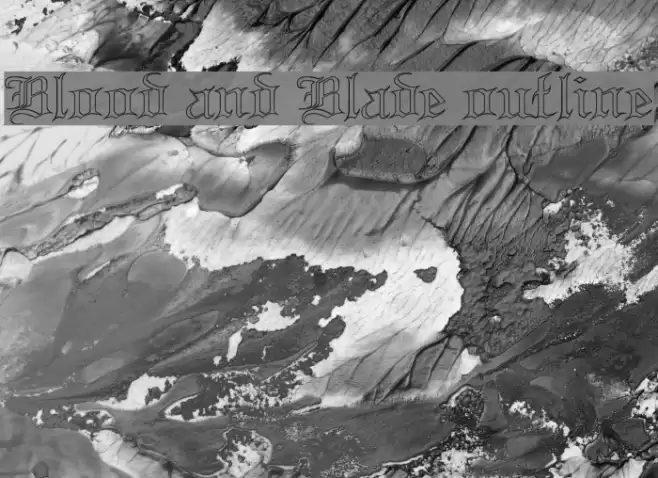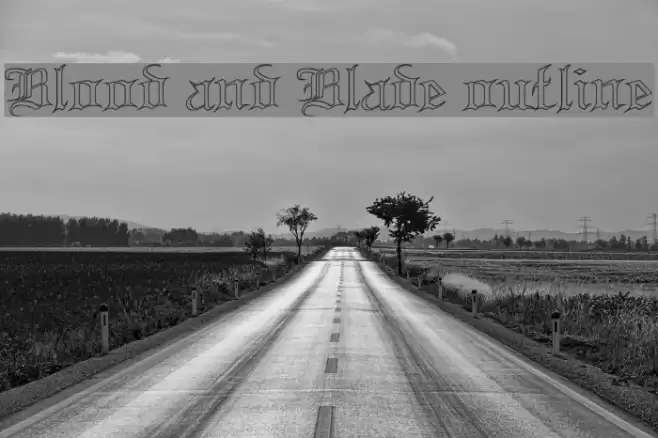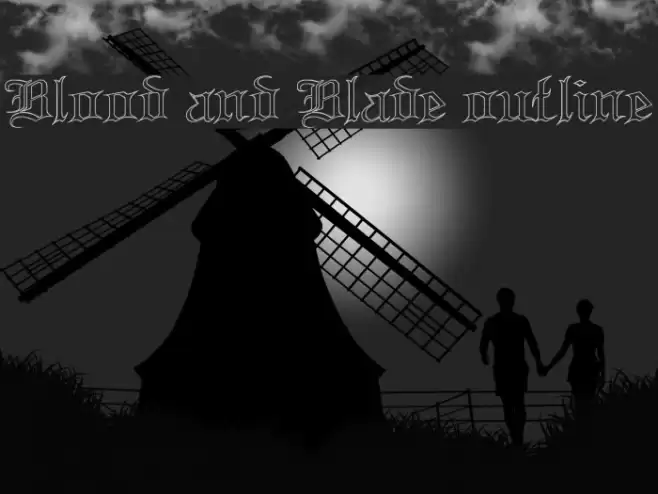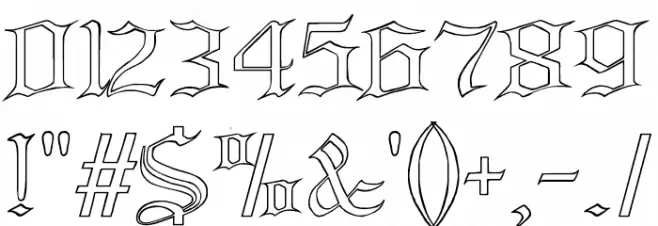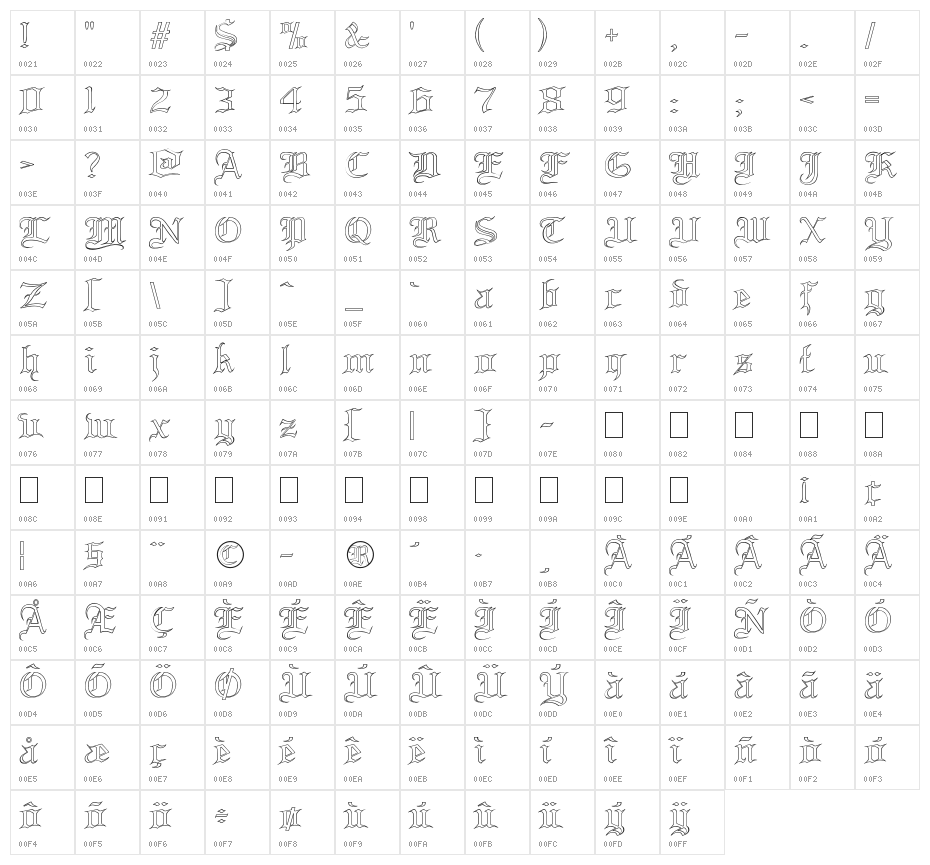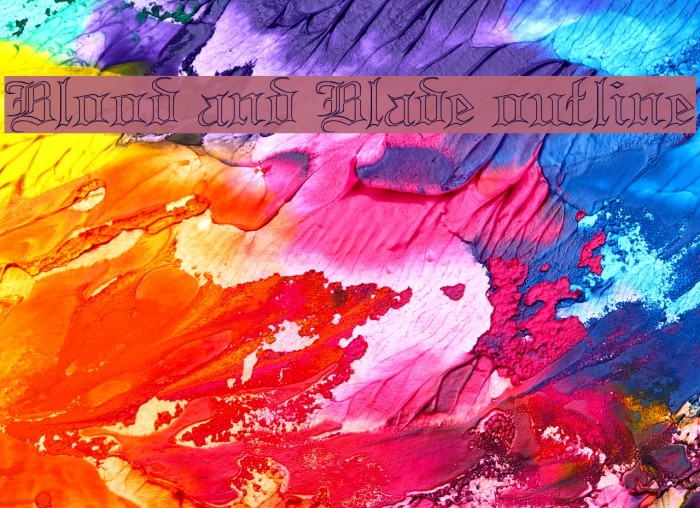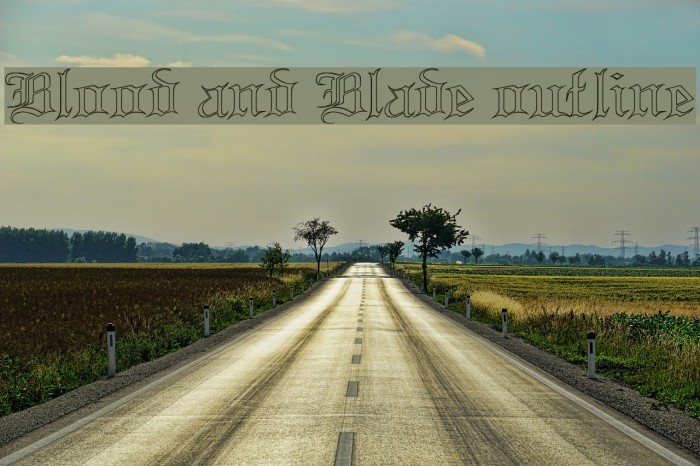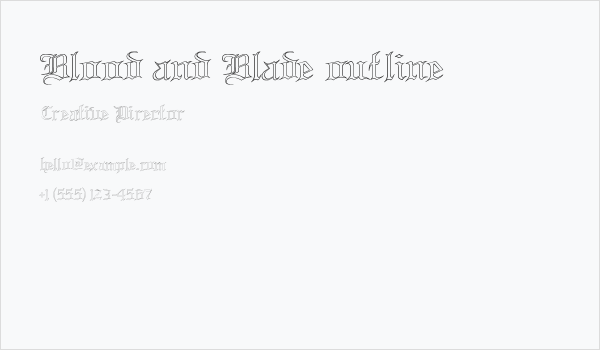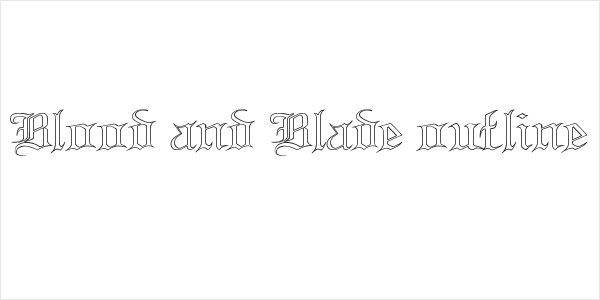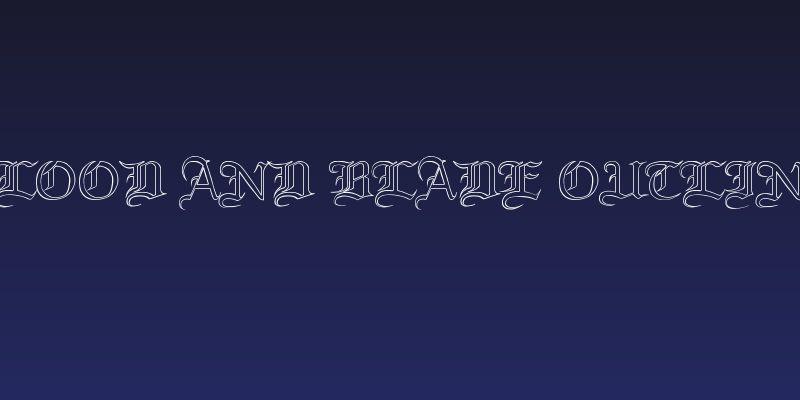
Blood and Blade outline Font
Blood and Blade outline Description
This font features a bold, gothic style with sharp, angular lines and intricate detailing. The uppercase letters are particularly ornate, with elaborate serifs and flourishes that give them a medieval appearance. The lowercase letters maintain the same gothic aesthetic but are slightly more restrained, providing a balanced contrast to the uppercase. Numbers and special characters are designed with the same attention to detail, ensuring consistency throughout. The outline style adds a unique dimension, making the characters appear both strong and elegant. This font is ideal for projects that require a dramatic and historical feel.
- Proposed Projects: Perfect for use in fantasy-themed designs, book covers, posters, and branding that requires a dramatic and historical touch.